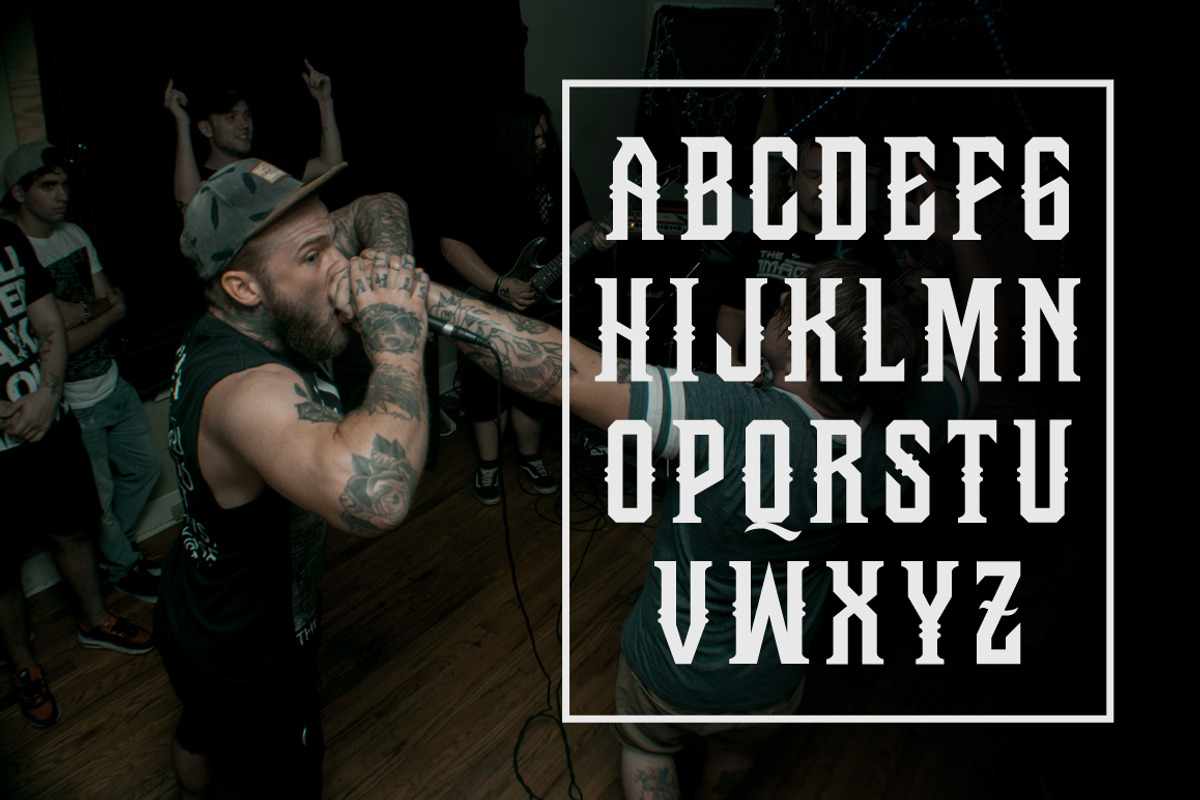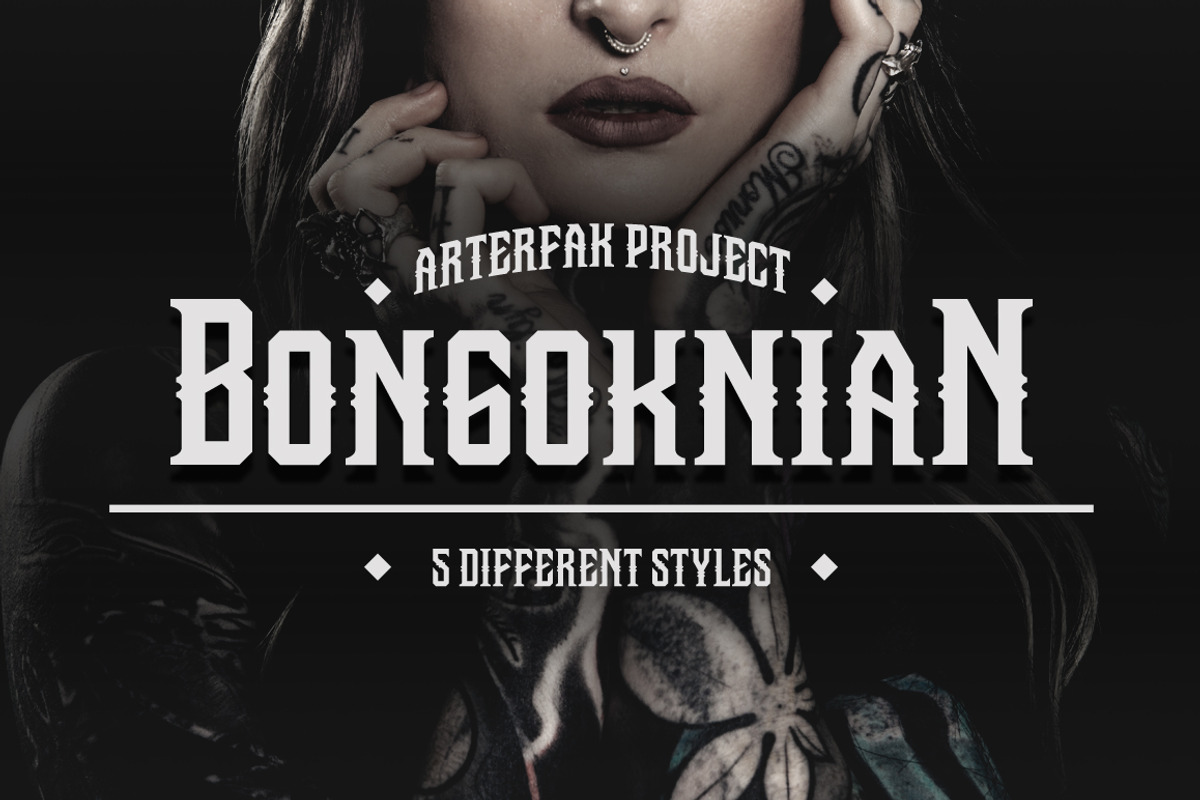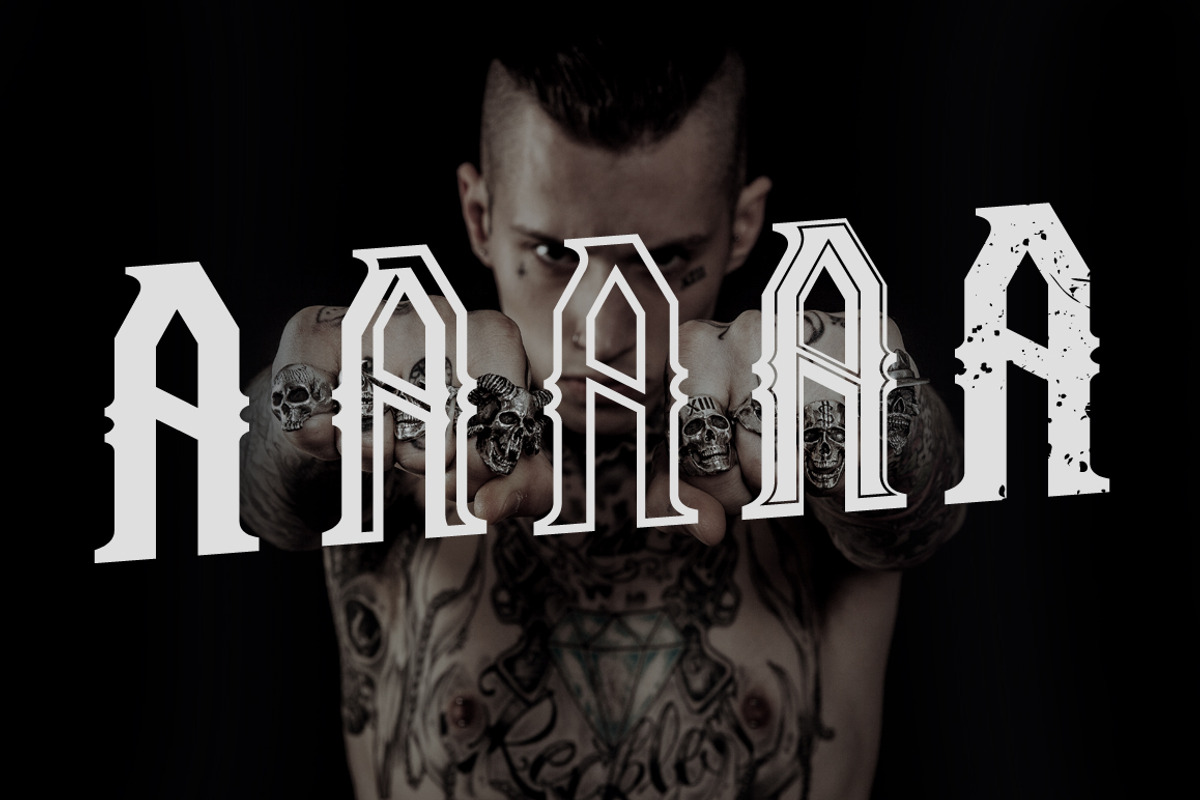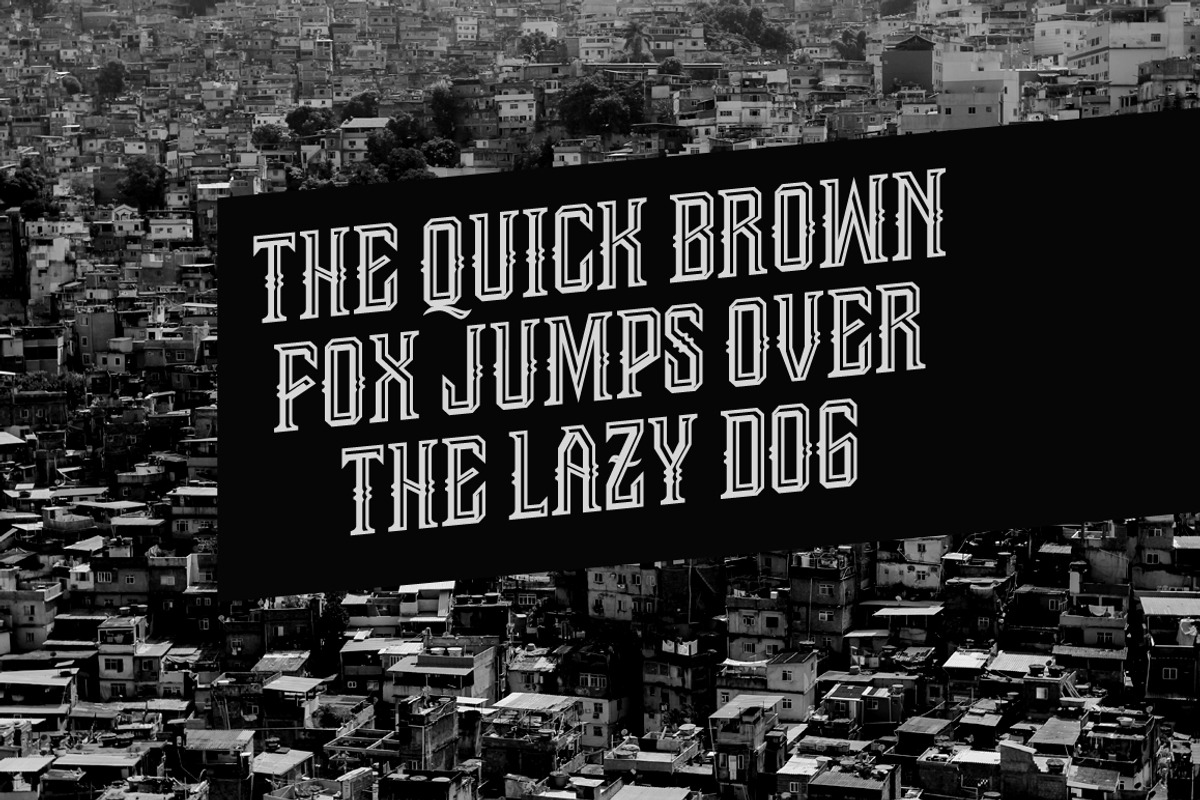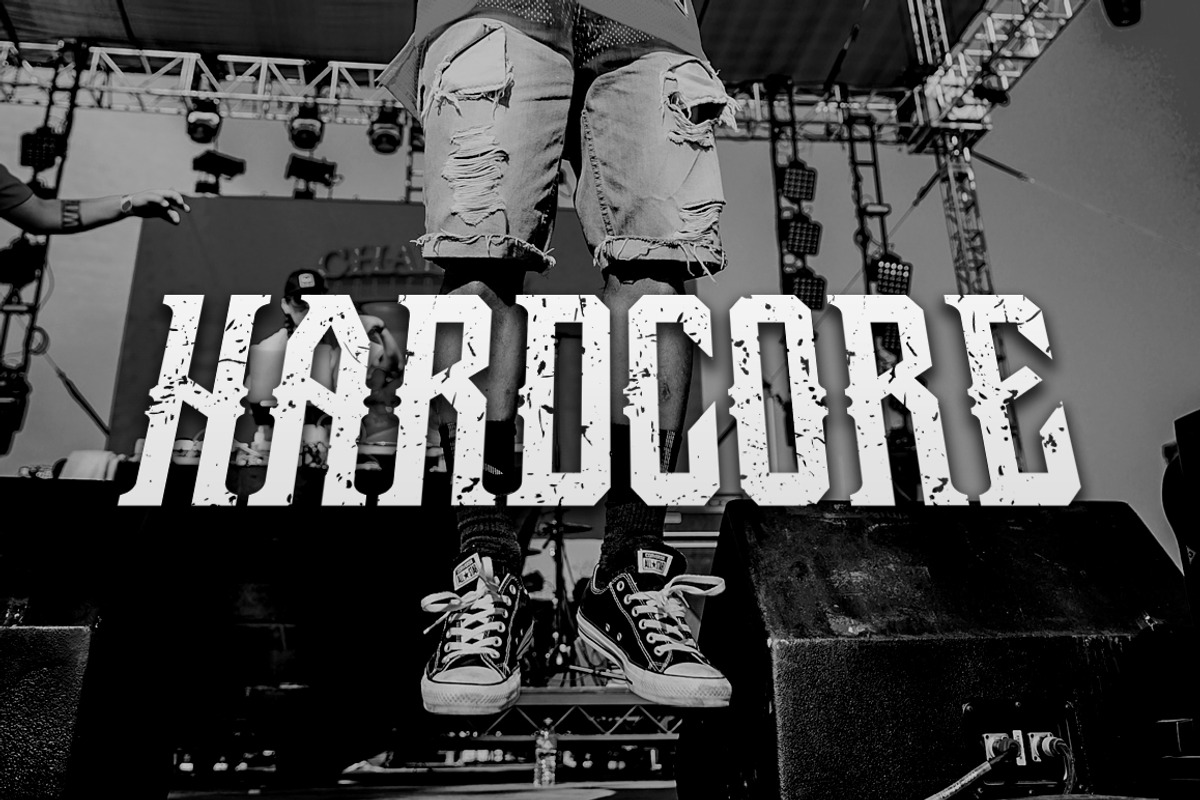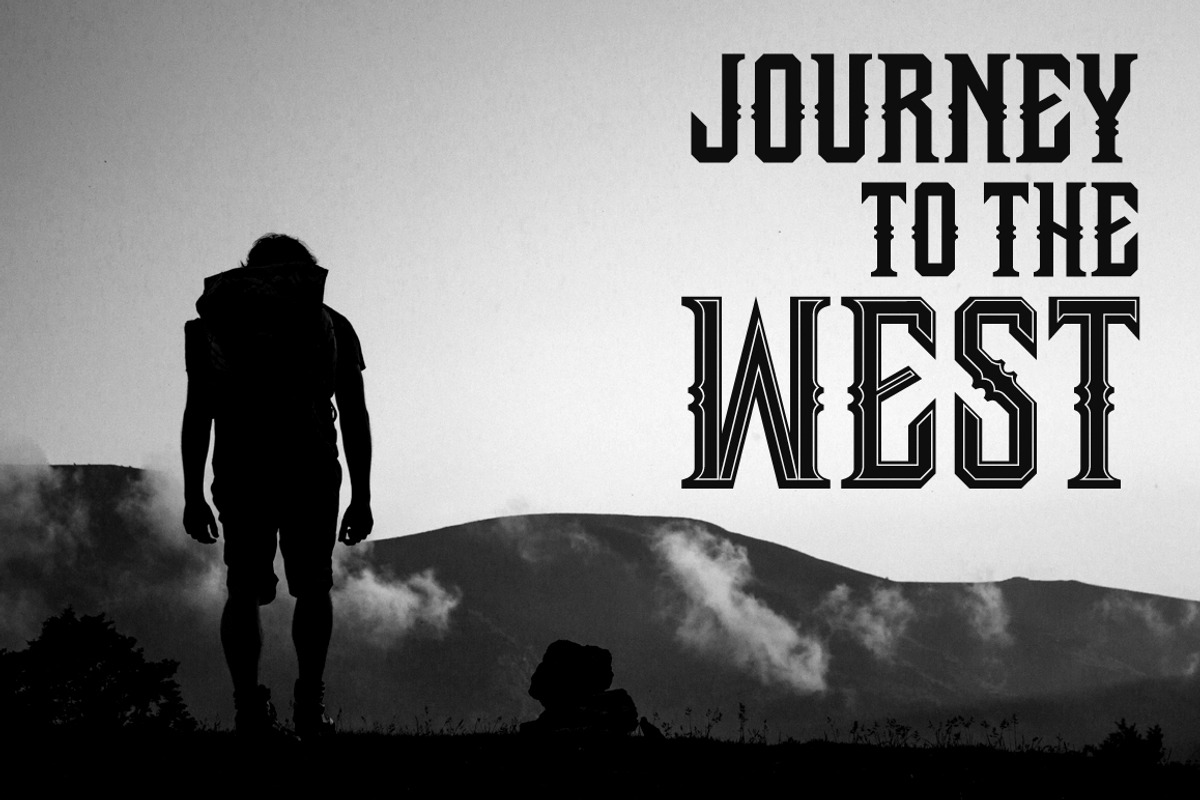
Bongoknian Typeface
Hello my friends! introducing my new experiment Bongoknian Typeface Made with old-school and slab serif taste. Display font which looks good for your flyer design, poster, clothing designs, quotes and etc. Recommended for your headline/title. Tested in Photosohop, Illustrator, CorelDraw and Microsoft Word Available in 5 styles : Regular, Emboss, Outline, Inline and Grunge! Good choice for your inspiration.